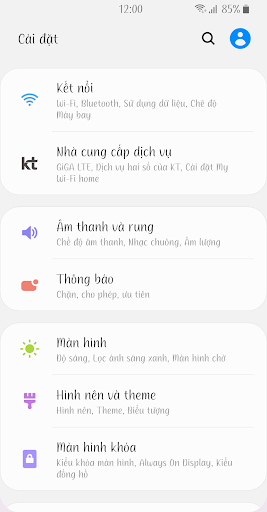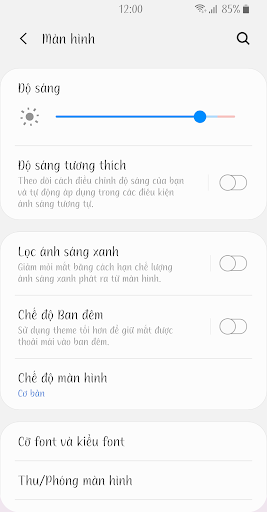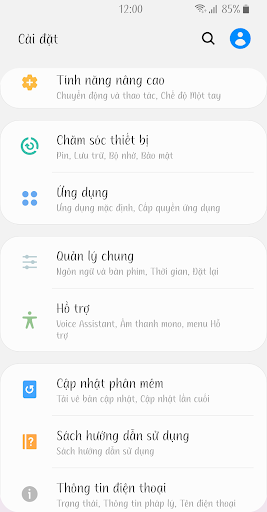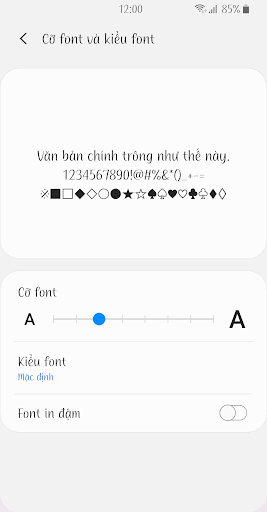
ZF Adagio
It is a handwritten style font that looks like it was written slowly with a pen.
You can see the change in thickness according to the movement of the stroke, and the stroke continues smoothly and naturally.
The change is not significant, so it shows a stable and comfortable appearance.
I hear your voice carried by the wind.
I can feel you even when I close my eyes
I believe you are approaching me slowly. Adagio.